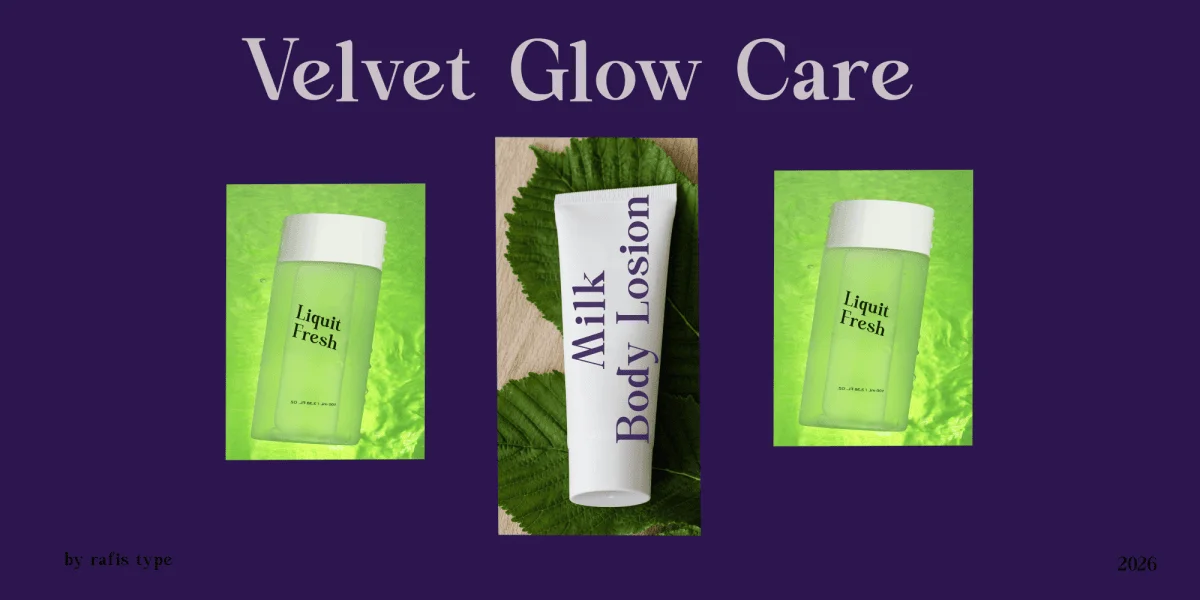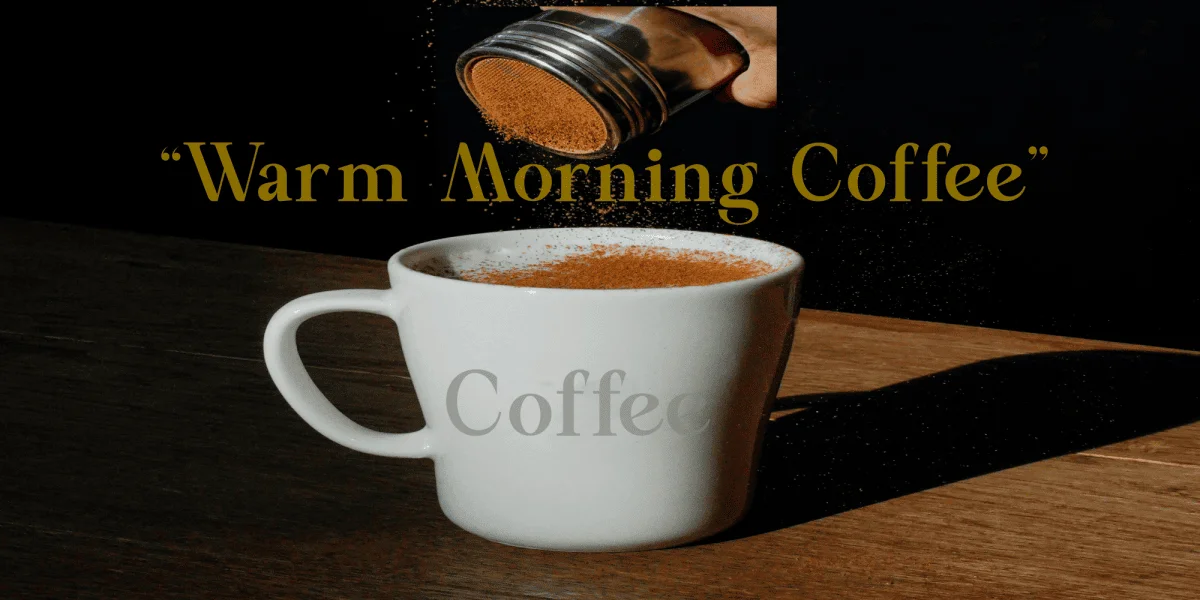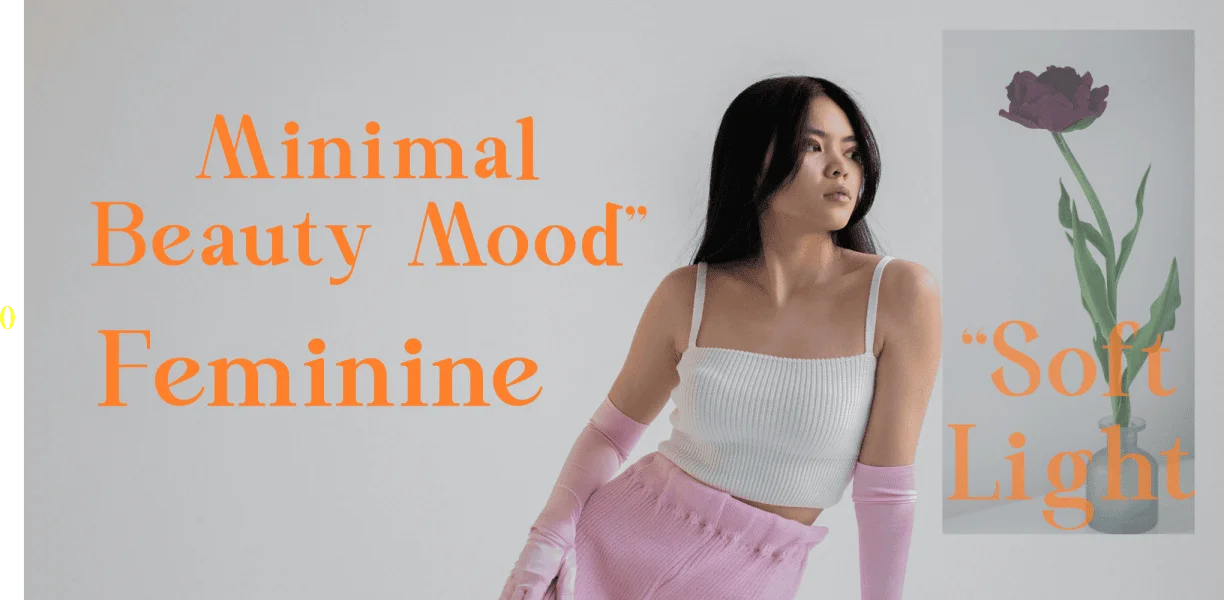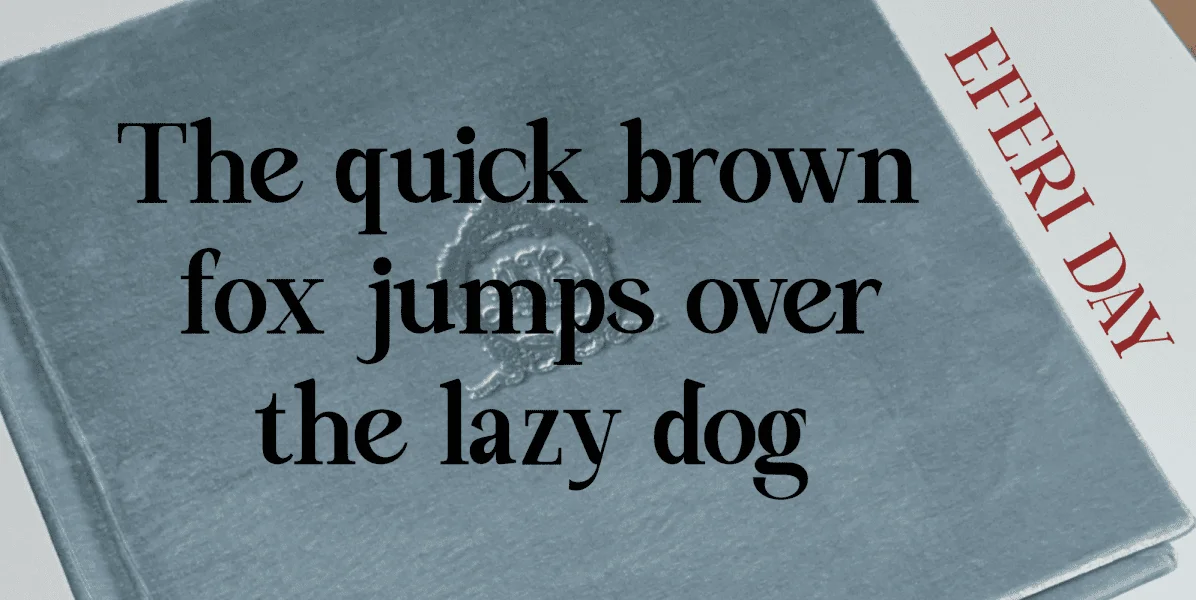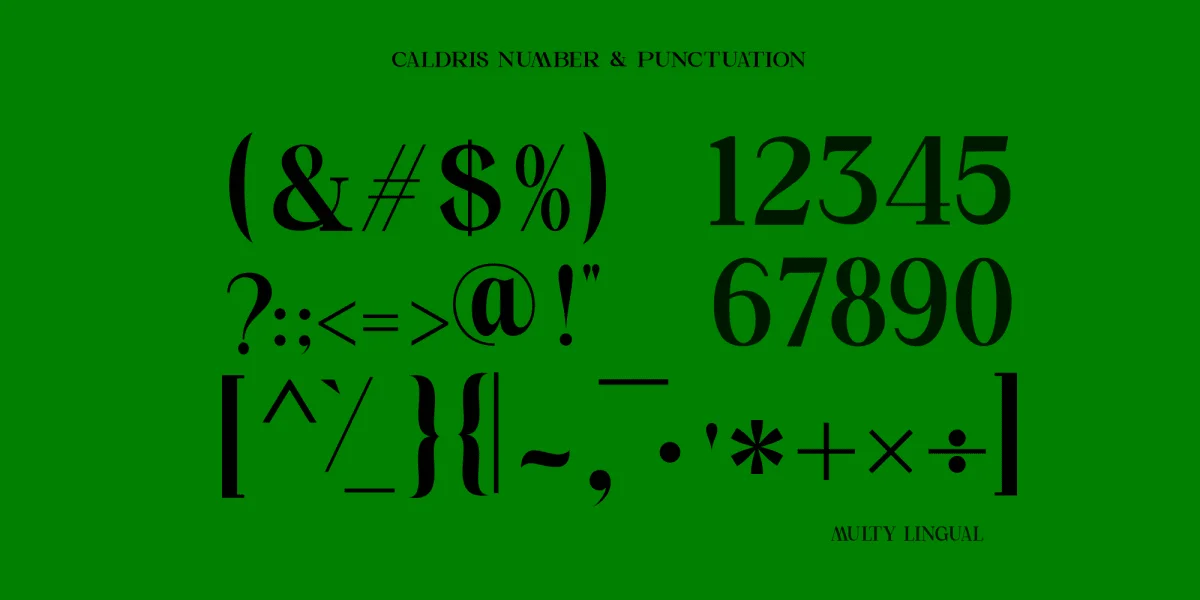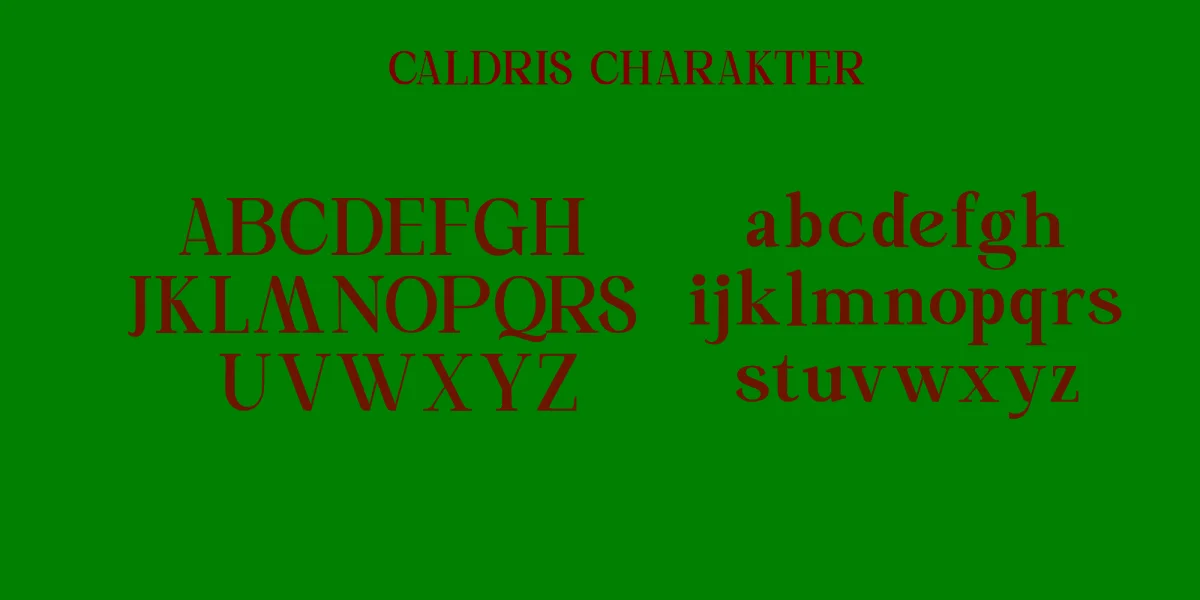
Caldris is an elegant serif font that blends classic beauty with a subtle modern touch. Featuring well-defined yet smooth serif details, it delivers a luxurious, refined, and timeless impression in every character. Its balanced proportions and graceful curves make Vantiqui perfect for premium branding, logos, editorials, and exclusive designs that require a strong and sophisticated identity